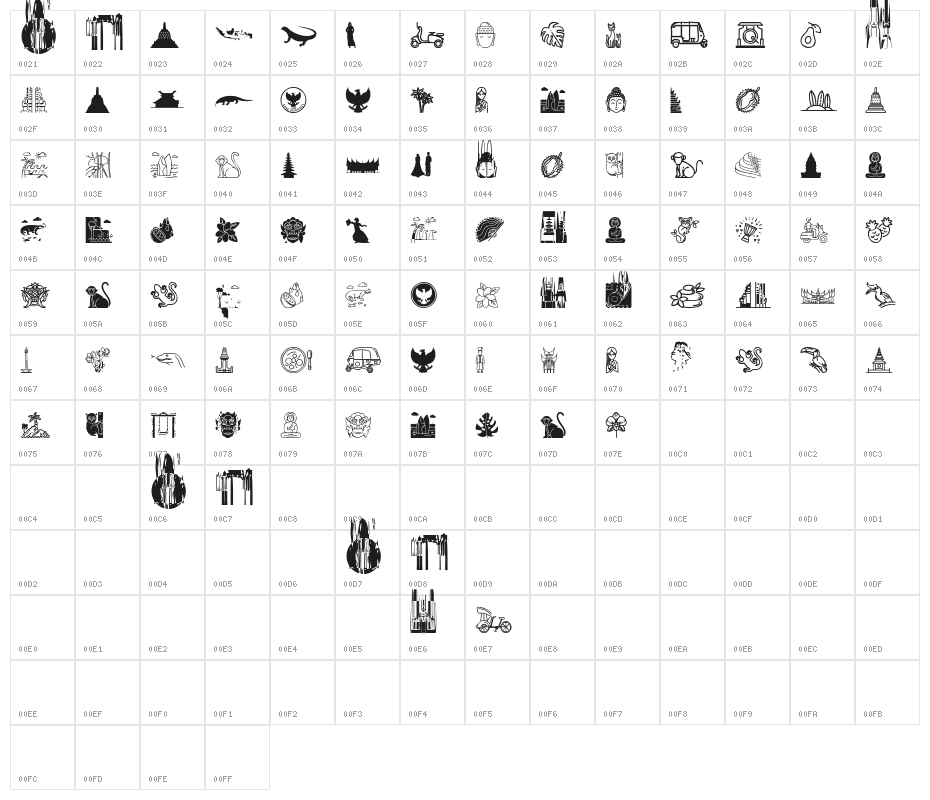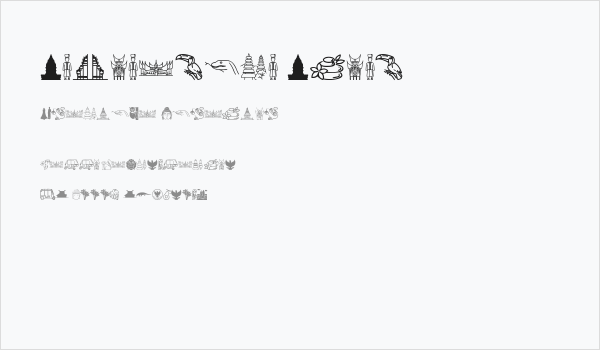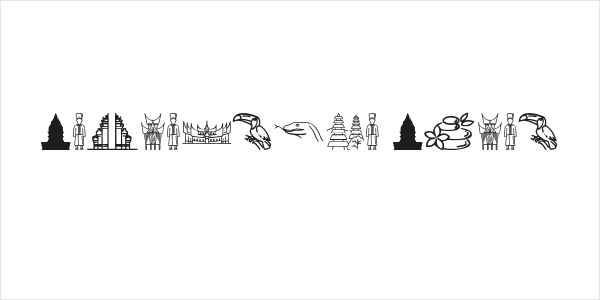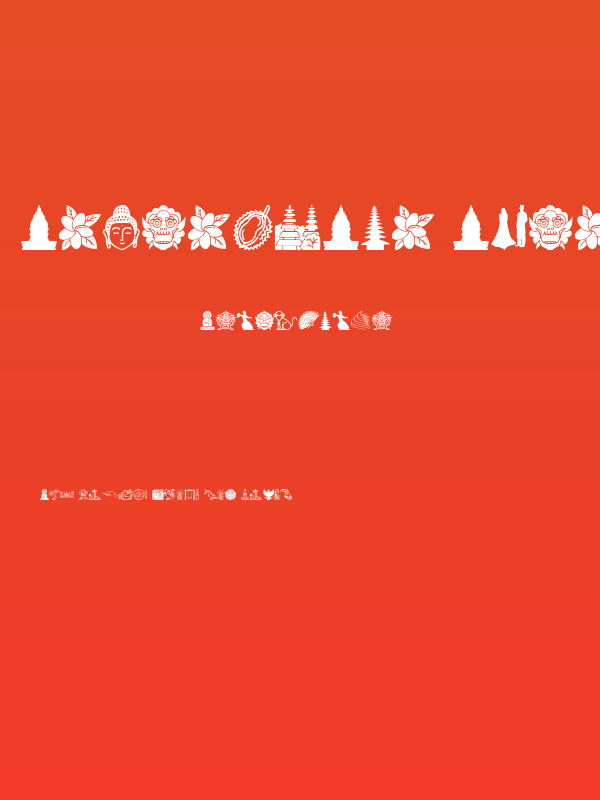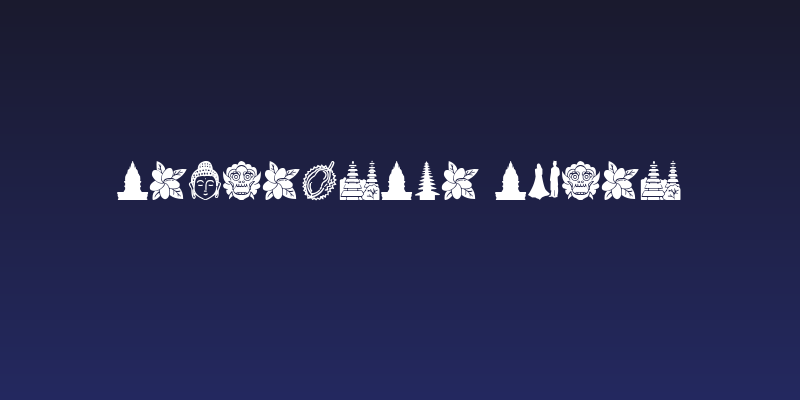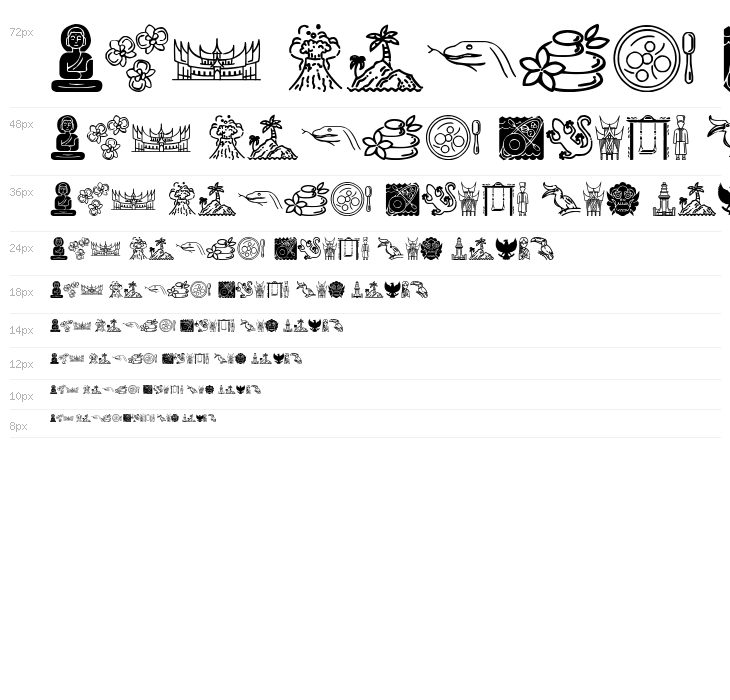
Indonesian Icons Font
Indonesian Icons Description
A collection of Indonesian-themed pictograms and icons, featuring cultural symbols, landmarks, animals, and traditional motifs in a consistent black-and-white, vector style.
| Overall Style | Decorative, Cultural, Modern |
| Use Case | Icons, Logos, Posters, Infographics |
| Proposed Projects | Tourism branding, travel guides, educational materials, cultural event posters, souvenir designs. |